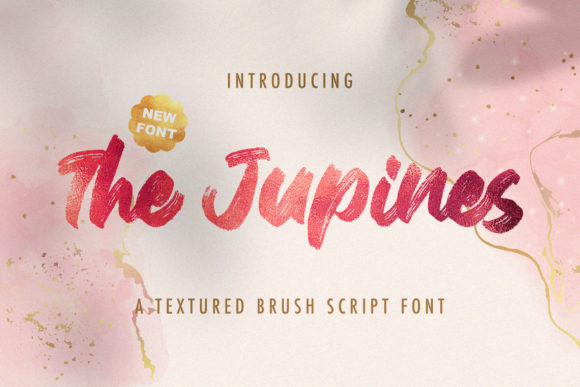
Unveil the Beauty of The Junipes Font: A Stroke of Elegance for Your Digital Creations
Embark on a typographic journey with The Junipes Font, a meticulously crafted script font that radiates sophistication and grace. Designed by the renowned StringLabs, this font is a visual masterpiece that will elevate your designs to new heights of elegance.
The Junipes Font is not just a collection of letters; it's an artistic expression that captures the essence of beauty and refinement. Each stroke, each curve, and each flourish is meticulously crafted to evoke a sense of timeless elegance. Whether you're a graphic designer, a web developer, or a content creator, The Junipes Font will transform your projects into visually stunning masterpieces.
Immerse yourself in the world of The Junipes Font and discover its enchanting qualities. Its delicate hairlines and sweeping curves dance across the page, creating a captivating visual rhythm that draws the eye and captivates the senses. The harmonious blend of thick and thin strokes adds depth and dimension to your designs, making them leap off the screen with a life of their own.
With The Junipes Font, your words will take on a new level of eloquence and charm. Whether you're crafting logos, branding materials, invitations, or social media posts, this font will infuse your creations with a touch of sophistication that will leave a lasting impression. Its versatility knows no bounds, making it the perfect choice for a wide range of design projects.
Don't settle for ordinary fonts that blend into the background. Embrace the beauty and elegance of The Junipes Font and watch your designs blossom into works of art. Let your creativity soar as you explore the endless possibilities that this remarkable font has to offer.